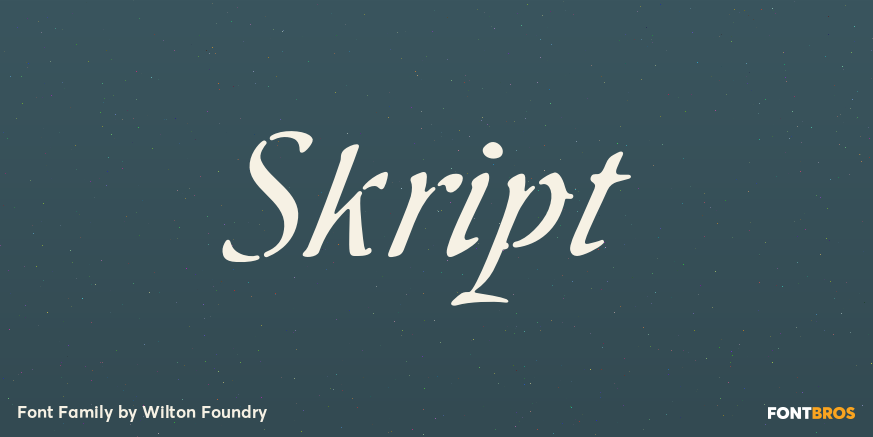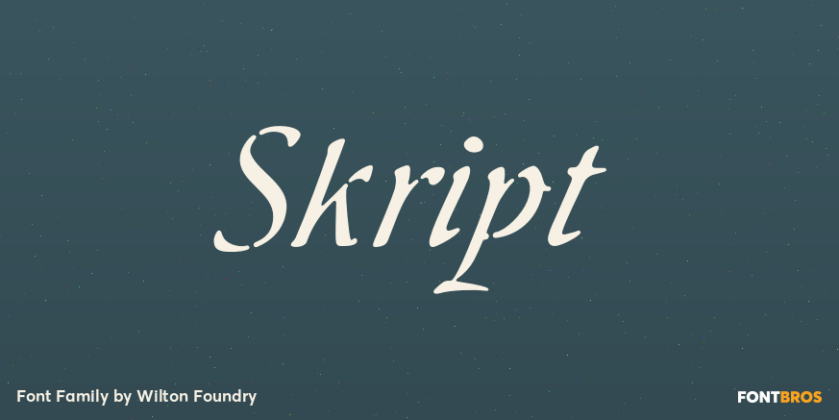
Skript
About Skript
Skript attempts to capture the essence of handwritten calligraphy. It emphasizes downstrokes and omits hair strokes with a contemporary stencil-like effect. Text is very readable since the foundation of each character remains intact. There many alternatives…